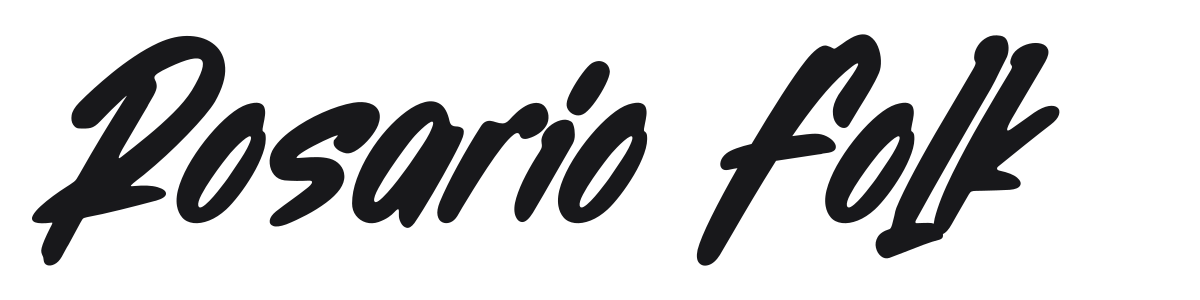
Rosario Folk
Rosario Folk is a bold brush script with heavy strokes and an energetic, hand-painted personality. The connected letters flow with lively irregularity, channeling folk art and vintage sign-painting traditions. It brings warmth and raw momentum to logos, packaging, and display work.